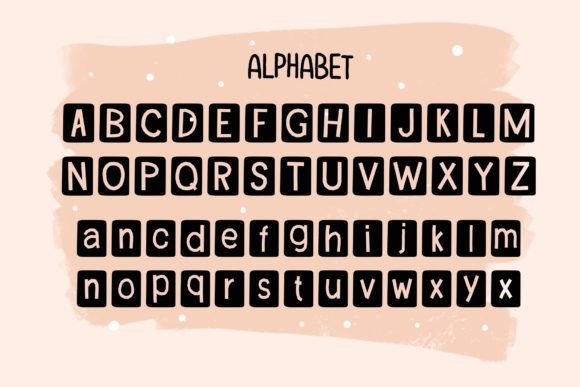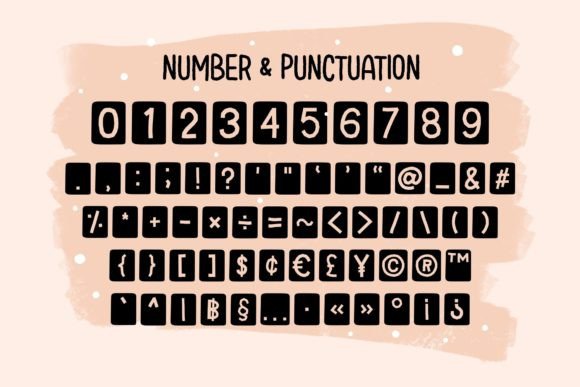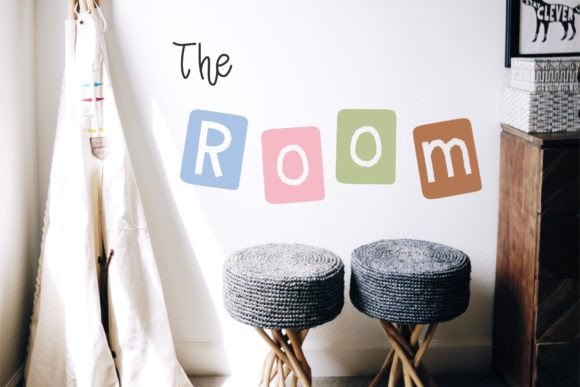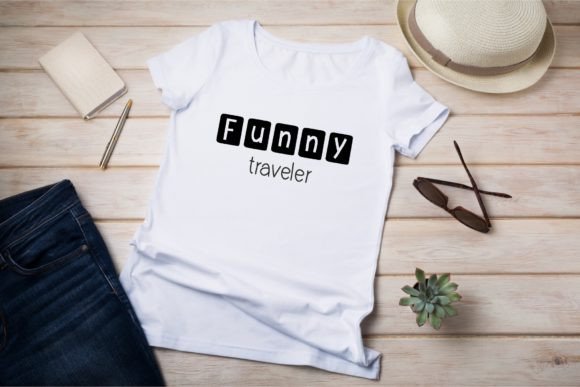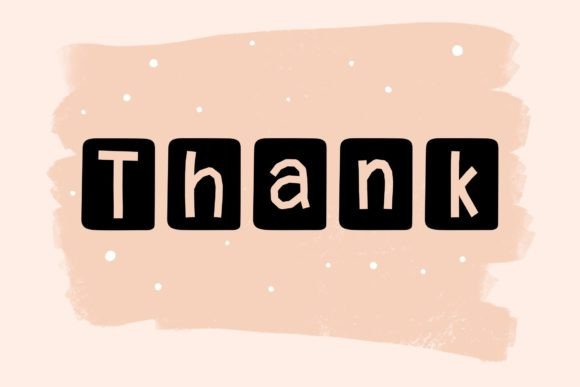
Unleash Your Creativity with the Perfect Font
Have you ever stared at a blank canvas, wondering which font will bring your design to life? I know I have. As a designer, there’s nothing quite like the thrill of discovering the perfect font to elevate your project. And today, I’m excited to share with you a game-changing font that’s about to become your new go-to: the Black Mini Card Font.
This lovely and modern decorative font is designed to add a touch of sophistication to all your creative endeavors. Whether you’re crafting logos, branding materials, social media graphics, or DIY projects, the Black Mini Card Font is the perfect fit. Its versatility and charm make it an invaluable asset for designers, and I’m about to show you why.
Key Features of Black Mini Card Font
- Font Family: Black Mini Card Font is a unique, custom-designed font.
- Font Size: Designed to be used in small to medium-sized text, ideal for card designs, invitations, and other compact applications.
- Unique Characteristics: Features a distinctive, bold, and modern design with clean lines, making it perfect for creating eye-catching cards and invitations.
Designer Review: Black Mini Card Font
Overall, the Black Mini Card Font has a charming aesthetic that can be quite effective in the right context. ✨ The font’s minimalistic design and bold lines make it ideal for use on cards, invitations, and other small-scale print materials.
Here are some of the things that work well with this font:
- ✨ Great for titles and headings, the font’s bold lines make it easy to read and understand at a glance.
- ✨ The font’s simplicity makes it easy to pair with other designs, from modern to vintage styles.
- ✨ The font is highly customizable, with a range of sizes and styles available to suit different design needs.
- ⚠️ The font may not be as effective for large blocks of text, as the minimalistic design can make it difficult to read in bulk.
- ⚠️ The font’s bold lines can also make it difficult to read in certain lighting conditions, such as in low-light environments.
In conclusion, the Black Mini Card Font is a solid choice for designers looking to add a touch of elegance and sophistication to their designs. While it may not be suitable for every design project, it can be a great asset when used in the right context.
The Black Mini Card Font is perfect for creating modern and sleek designs, such as:
- Business cards and invitations
Remember to use the font consistently throughout your design to create a cohesive look and feel.
Q: What is the recommended font size and line height for the Black Mini Card Font?
The recommended font size for the Black Mini Card Font is between 8-12 points, depending on the specific design application. A line height of 1.2-1.5 times the font size is recommended to ensure clear readability and a clean aesthetic.